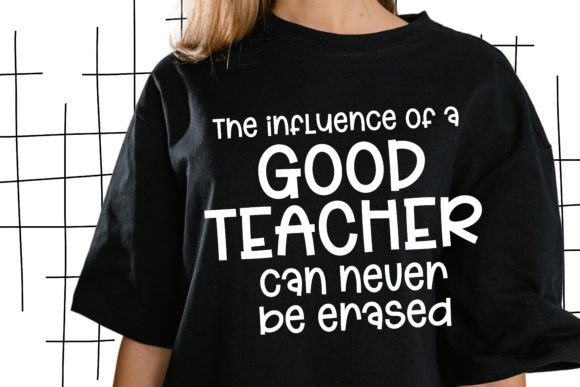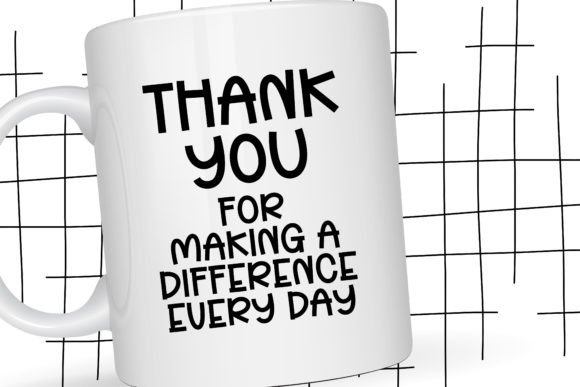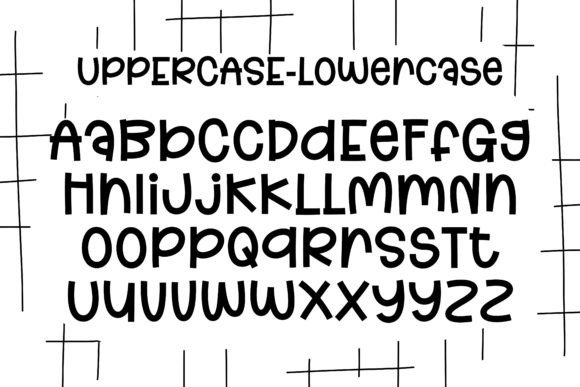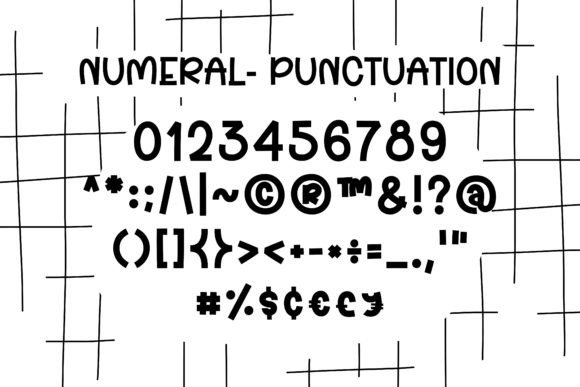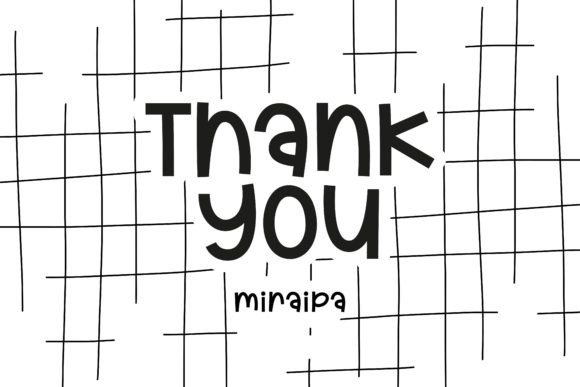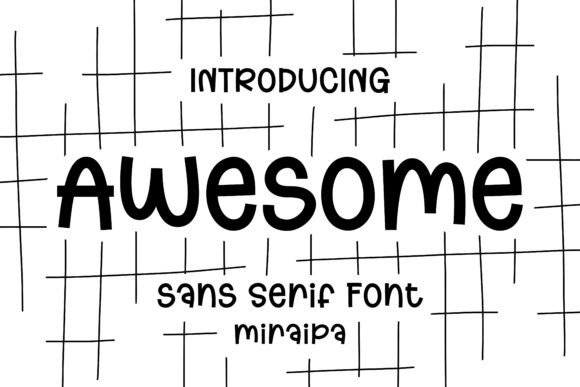
The Awesome Font: A Cute and Friendly Sans Serif for Your Fun Projects
Have you ever been in the middle of a design project, and suddenly, you just can’t seem to find the right font? I recall a particularly frustrating moment when I was working on a Easter-themed planner, and my usual go-to fonts just weren’t cutting it. That’s when I stumbled upon the Awesome Font, and let me tell you, it was a game-changer! 🎉
A Personal Review: What I Love About Awesome Font
I’m excited to share my honest review of the Awesome Font, and here’s what I love about it:
- ✨ Cute and Friendly Design: The Awesome Font is designed in a charming, whimsical, and slightly quirky sans serif font style with lovely brush strokes. It’s perfect for adding a friendly touch to your projects.
- ✅ Versatility: This font is ideal for a wide range of projects, including Easter, back to school, wedding, party decoration, invitations, Fall, Halloween, Christmas, posters, blogs, clothing, child-related designs, greeting cards, social media posts, and more!
- 🎨 OpenType Features: The Awesome Font comes with a range of OpenType features, including glyphs and stylistic alternates, which allow you to customize your text and make it more creative.
While I absolutely adore the Awesome Font, there are a few minor quirks to be aware of:
- 🤔 Limited Use in Formal Contexts: Due to its playful and whimsical nature, the Awesome Font might not be the best choice for formal projects, such as business presentations or professional documents.
- ⚠️ Legibility at Small Sizes: As with many script and brush fonts, the Awesome Font may lose legibility when used at very small sizes. Make sure to test it at different sizes to ensure it works for your project.
The Designer Inspiration Behind Awesome Font
The Awesome Font was designed with the intention of creating a friendly and approachable sans serif font that’s perfect for fun and creative projects. The designer aimed to craft a font that’s charming, whimsical, and a bit quirky, making it ideal for a wide range of applications.
| Font Name | Awesome Font |
| Author | miraipa |
| Q: What type of projects is the Awesome Font best suited for? | A: The Awesome Font is perfect for fun and creative projects, such as Easter, back to school, wedding, party decoration, invitations, Fall, Halloween, Christmas, posters, blogs, clothing, child-related designs, greeting cards, social media posts, and more! |
| Q: Is the Awesome Font available in different languages? | A: The Awesome Font may not support all languages, but it does come with a range of OpenType features, including glyphs and stylistic alternates, which can help with language support. |